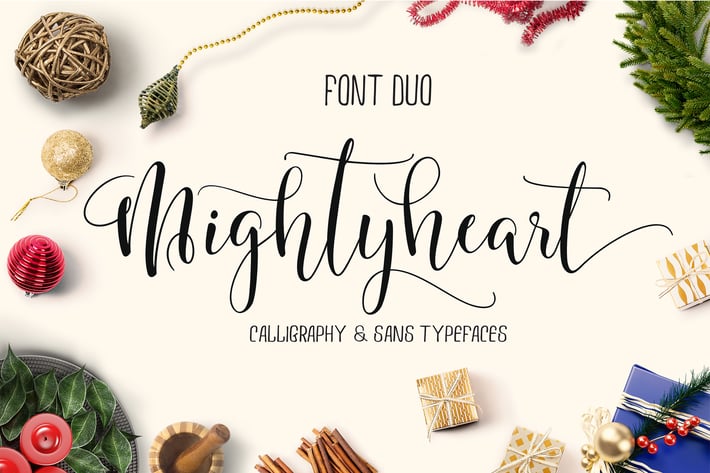
mighty heart - font duo
INTRODUCING
Mightyheart Font Duo
are two of different typefaces caracter, modern and clasik, calligraphy wavy and sans font, which was created to meet the needs of your next design project. Mightyheart..Can be used for various purposes.such as the title, signature, logo, correspondence, wedding invitations, letterhead, signage, labels, newsletters, posters, badges, etc. Mightyheart features + 600 glyphs and has given PUA unicode also supports in pragram, Adobe Illustrator, Adobe Photoshop, Adobe InDesign, Corel Draw X version, Microsoft Word, Language Support : Albanian, Basque, Breton, Chamorro, Danish, Dutch, English, Faroese, Finnish, French, Frisian, Galician, German, Icelandic, Italian, Malagasy, Norwegian, Portuguese, Swedish
The Features of this fonts is:
Contextual Alternates
Standart ligatures
Swashes
Stylistic Alternates
Stylistic Sets 1-10
Titling Alternates
Initial
Features Basic Latin A-Z and a-z Numbers Symbols